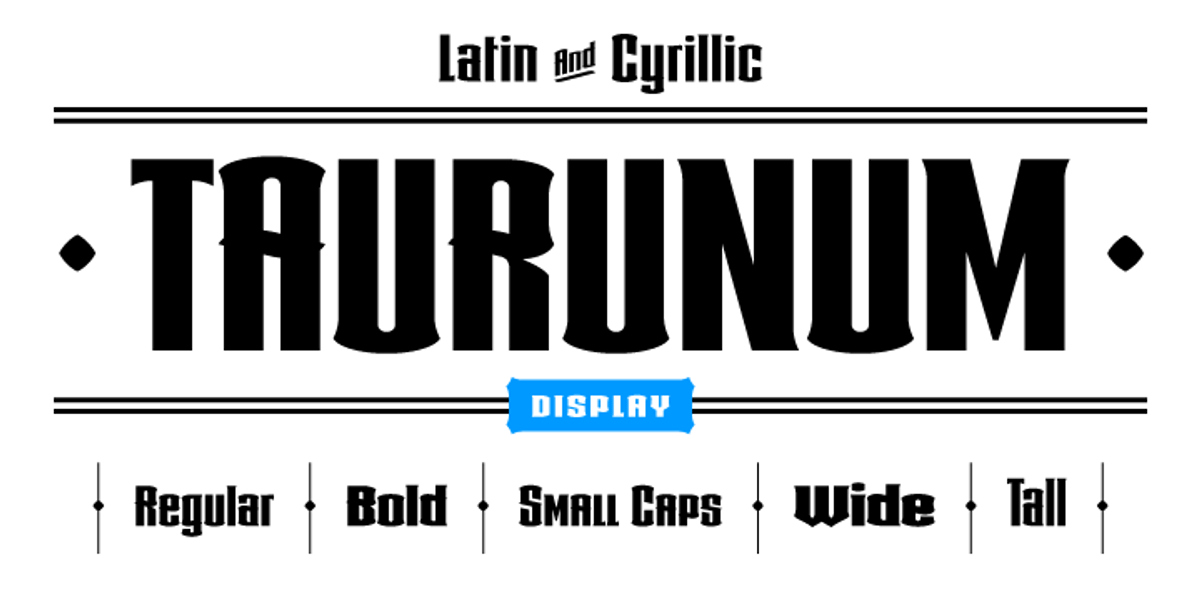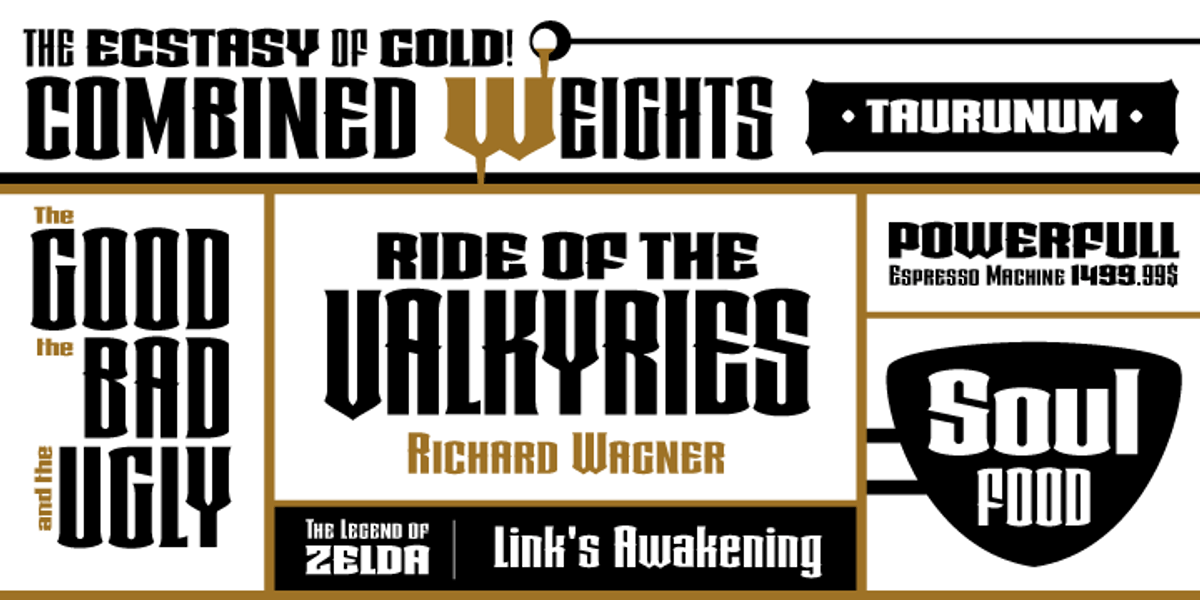
Taurunum
Taurunum is a display typeface designed for eye-catching applications like logos and posters. Its bold geometric forms and high contrast create a strong visual impact. The font is intended to be used in combination with different weights to achieve the desired effect.